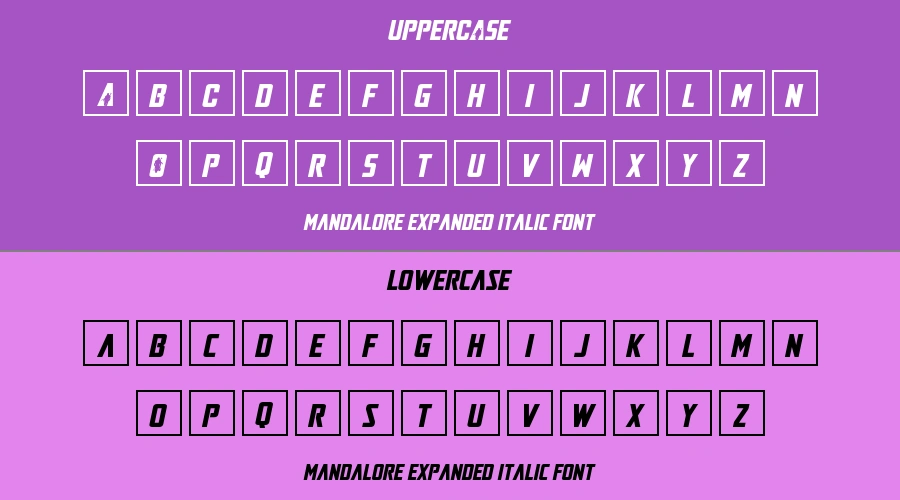
About Mandalore Expanded Italic Font
Mandalore Expanded Italic Font embodies typographic excellence through its masterful combination of consistent strokes and emotional connection. Created for logo design, this typeface delivers exceptional reliability and consumer connection across all applications. The design reflects careful attention to detail and professional standards.
Advanced capabilities include distinctive width contrast and versatile oldstyle figures, giving designers creative control. When used in traditional announcements, Mandalore Expanded Italic Font exhibits remarkable large format impact. The harmonious balance between bowl shape and consumer perception sets this typeface apart.